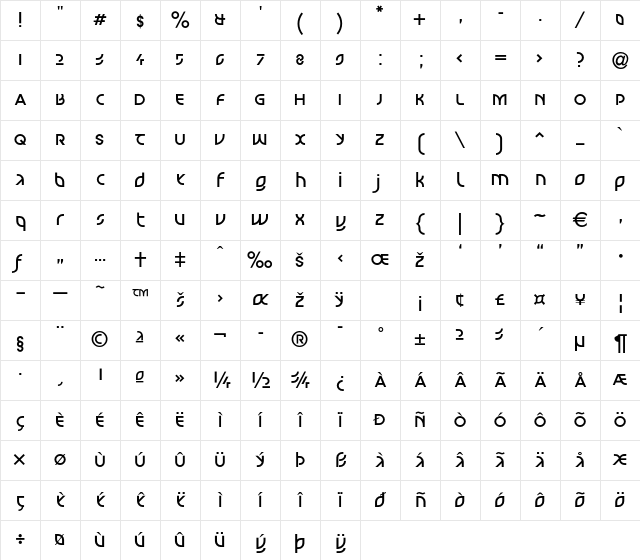
LinotypeScott Mars Regular
Design Context for LinotypeScott Mars
LinotypeScott Mars is a composed and adaptable typeface that performs quietly and consistently across a wide range of design contexts.